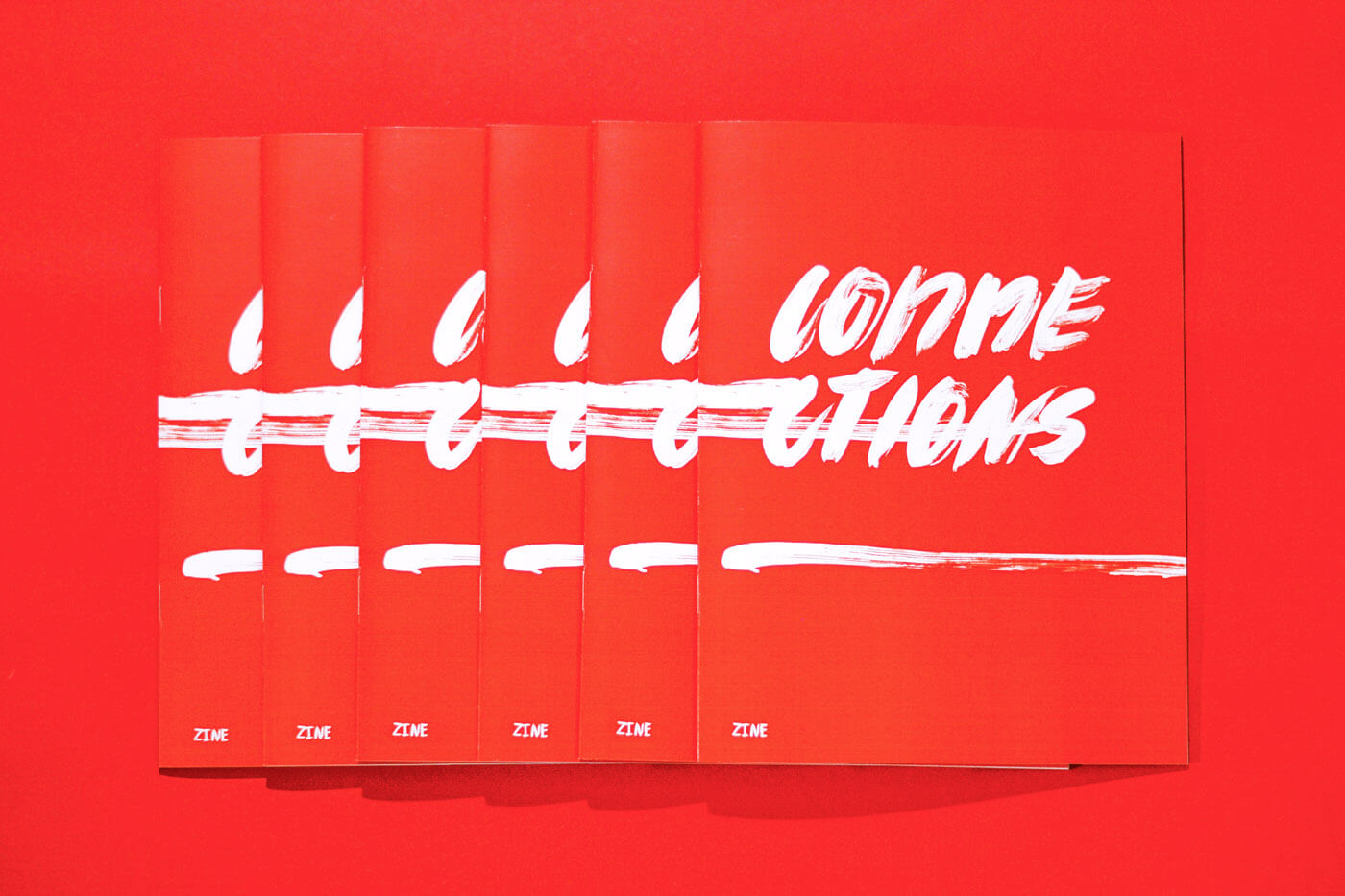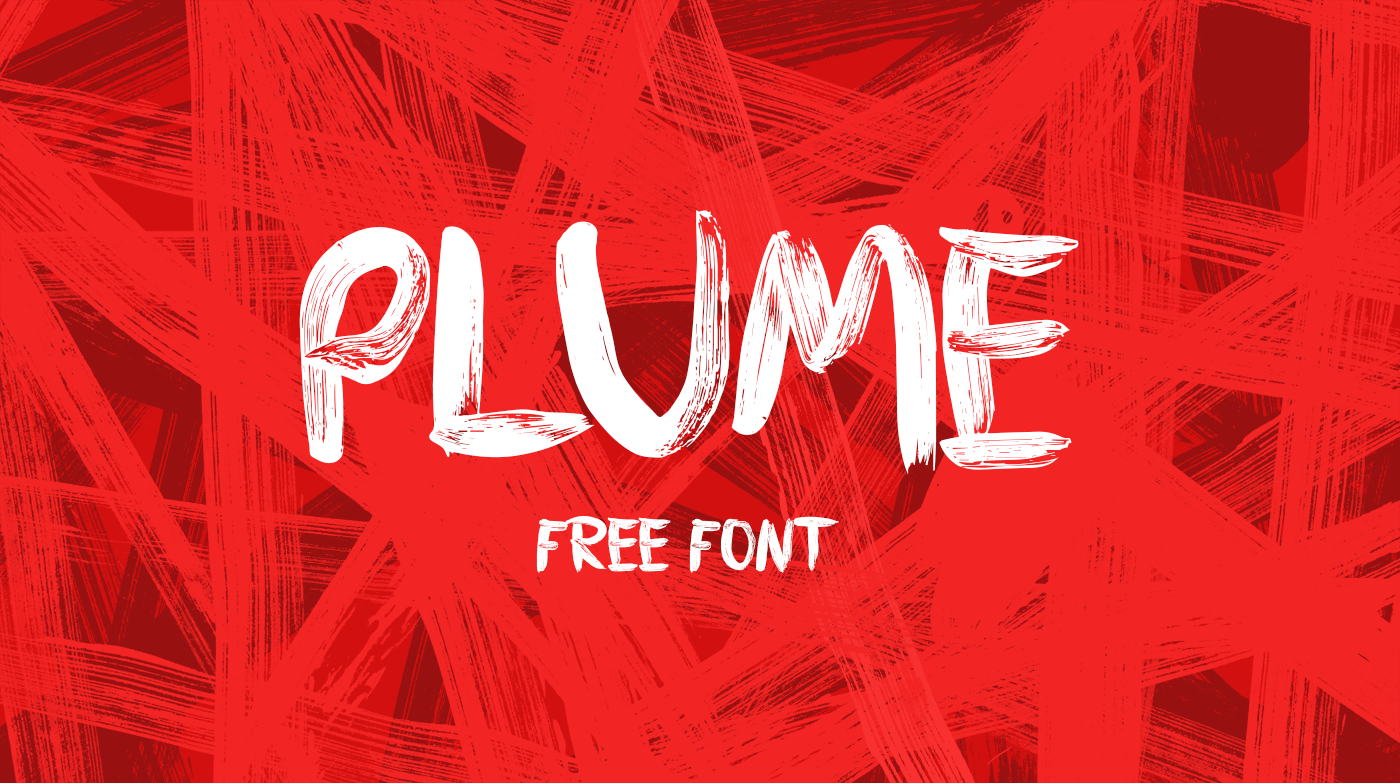
PLUME Free Brush Font
by Krišjānis Mežulis
PLUME comes with all the latin characters you need, all the letters numbers and symbols. Brushed on a plastic surface with a thick brush that leaves a unique splash on the lettering.